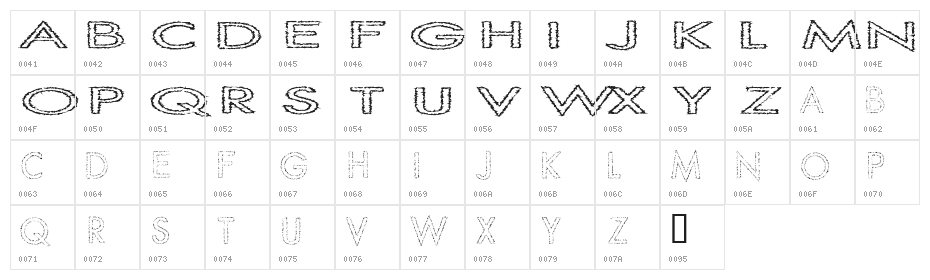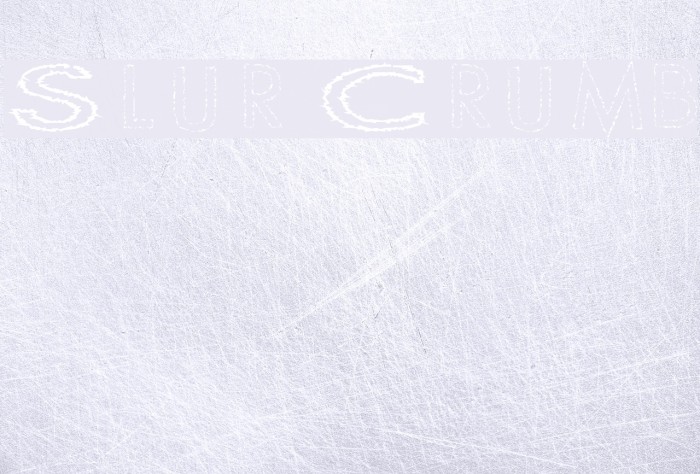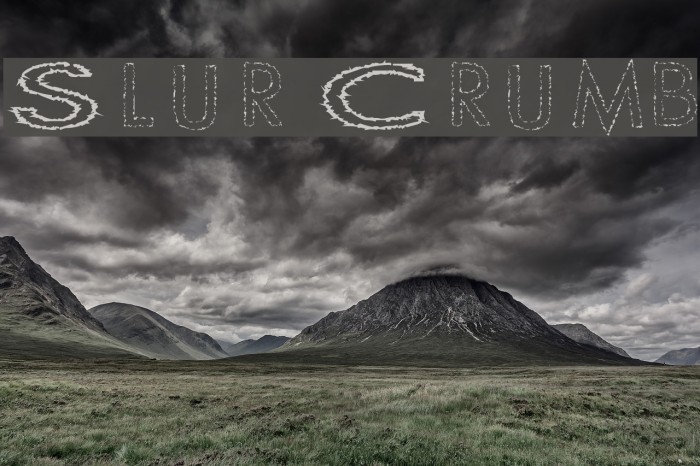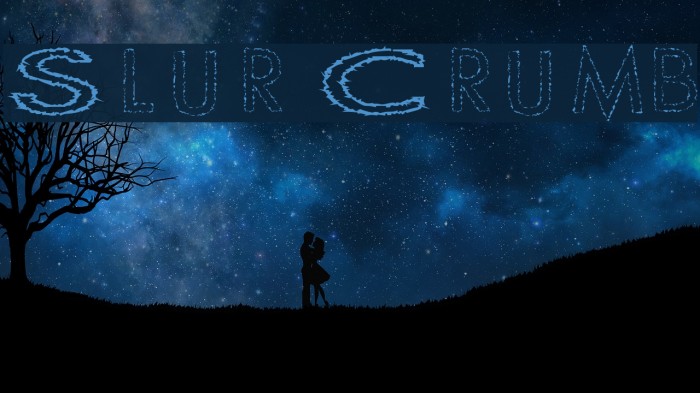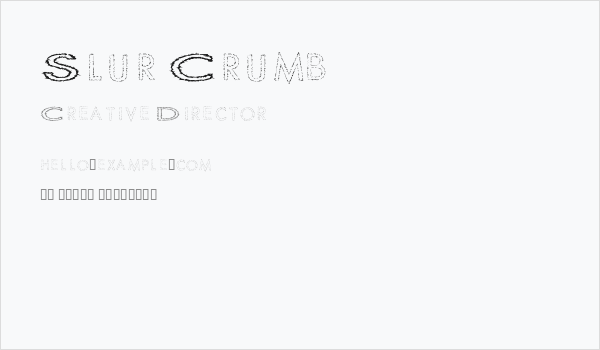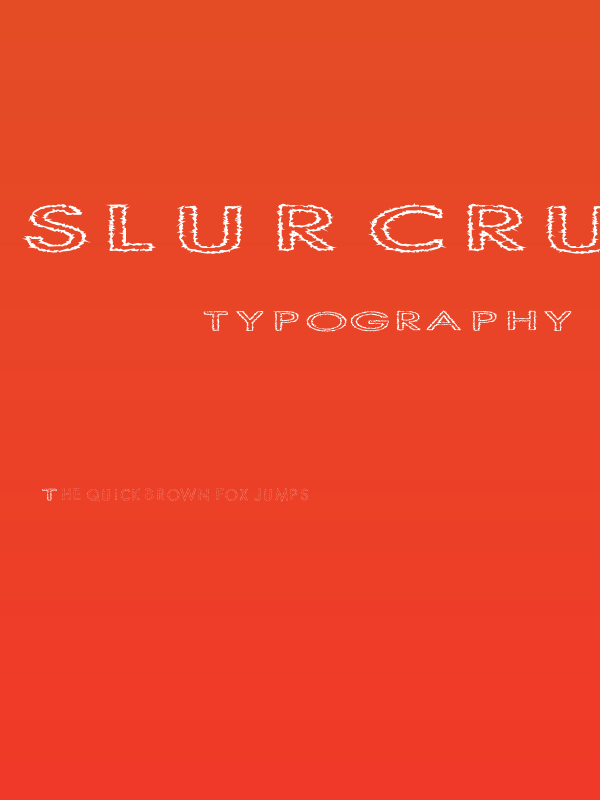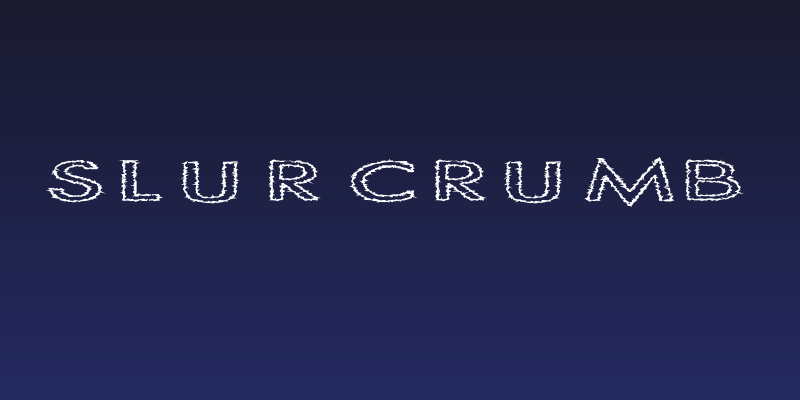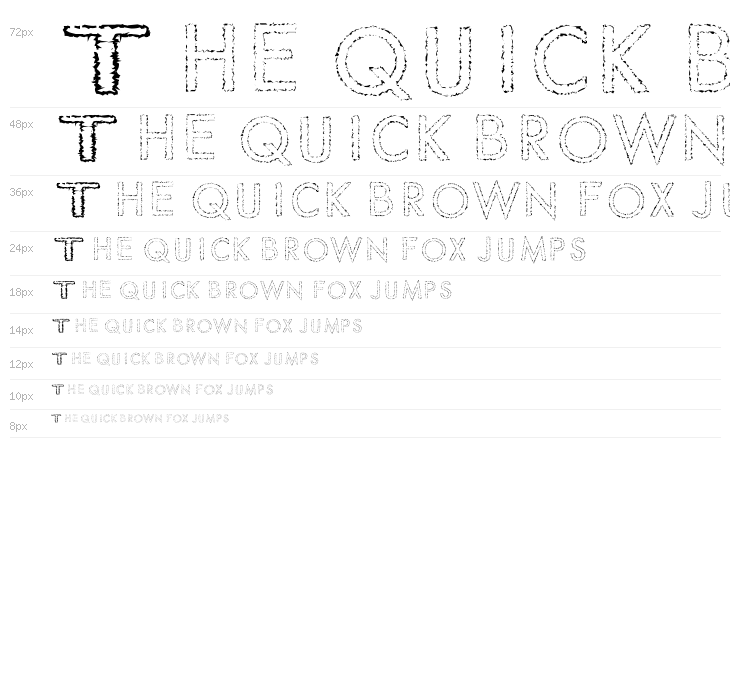
Slur Crumb Font
Slur Crumb Description
This font features a unique, distressed appearance with a hand-drawn quality. The uppercase letters are bold and slightly irregular, giving them a rustic and vintage feel. The characters have a textured outline that adds depth and character, making them stand out in any design. The font's style is reminiscent of old signage or typewriter text, with a modern twist that makes it versatile for various creative projects. Its distinctive look is perfect for capturing attention and conveying a sense of authenticity and nostalgia.
Overall StyleVintage
Proposed ProjectsIdeal for branding, packaging, posters, and any design requiring a vintage or handcrafted aesthetic.